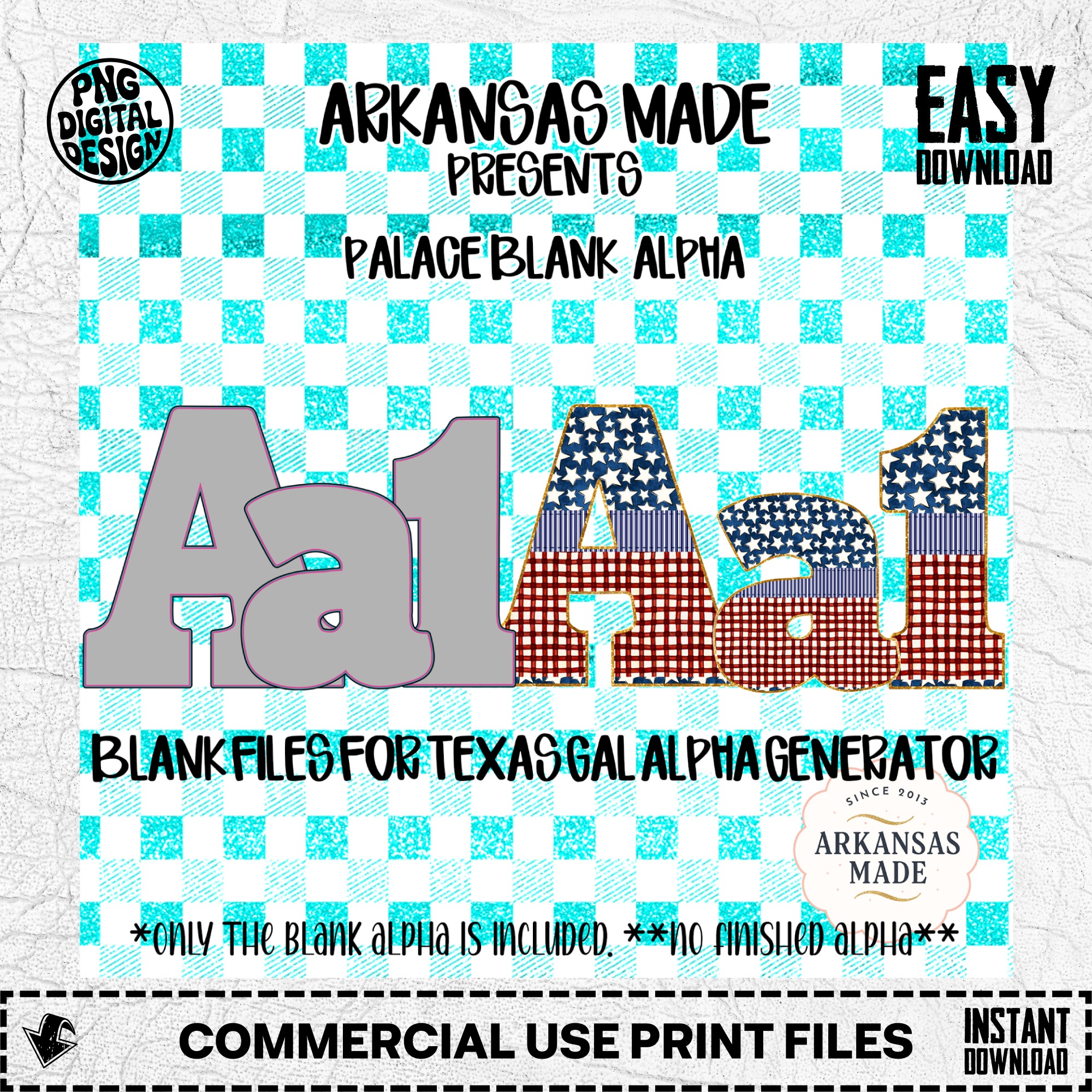
Elevate your crafting with the Palace Blank Alpha PNGs, perfectly designed for the Texas Gal Alpha Generator! Get instant digital files for versatile sublimation and DIY projects. Unleash your creativity with this bold, chunky letter and number set, ideal for digital crafters and small business owners. These blank alpha files are ready for your custom fills, perfect for creating personalized shirts, tumblers, and more. A fantastic digital asset for anyone looking to design unique, eye-catching projects or a thoughtful gift for a fellow DIY enthusiast.